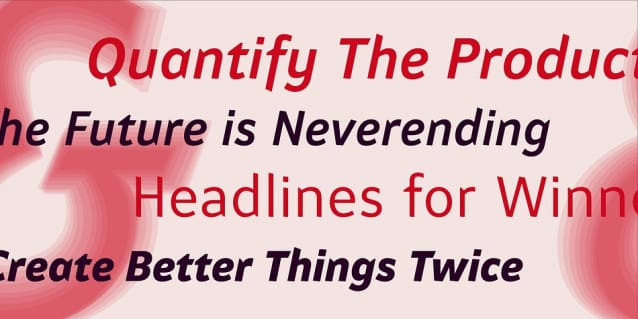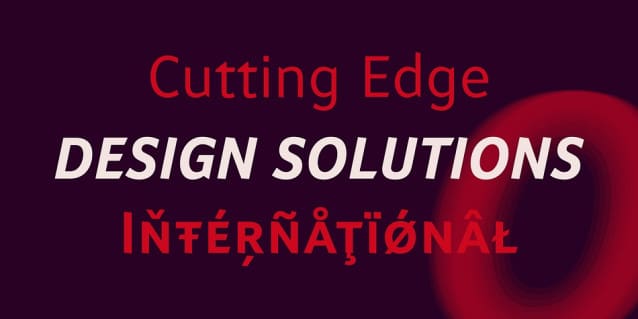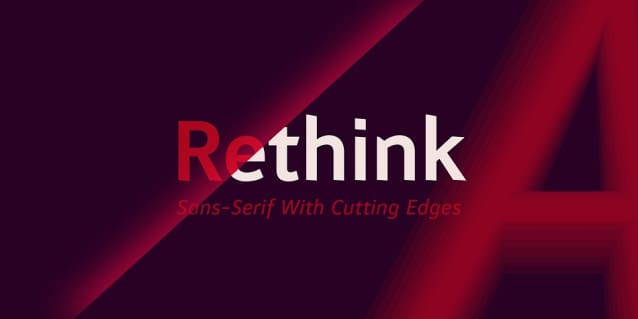
Rethink Font
Rethink Font – Powerful and modern sans-serif typeface, comes with a strong character. The typeface is made for work in text as well as in display. It features nine weights in two styles, including Small Caps, a set of contemporary OpenType functions, all standard figure sets and a rich language support.
Rethinks main characteristic are the non-straight stroke endings and a slope that might come in an unexpected direction. It brings a bit of movment to the baseline and some attraction to the shapes in bigger sizes. These details are designed to ‘disappear’ in smaller sizes and to not disturb a reading process.
Rethink Font was designed with the idea to help spreading bold ideas ond strong opinions, to support the work of activists in contemporary movements, to design statements with impact and meaningfulness.